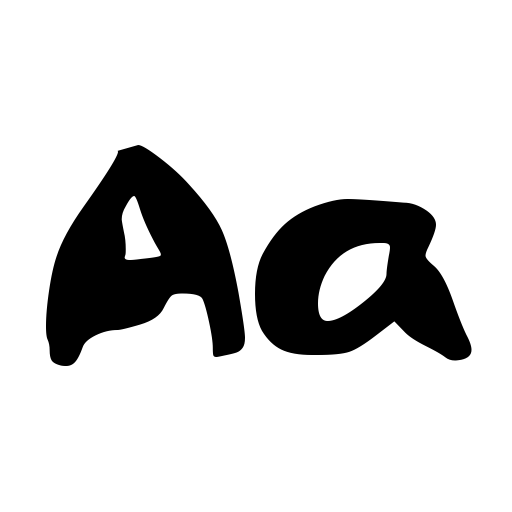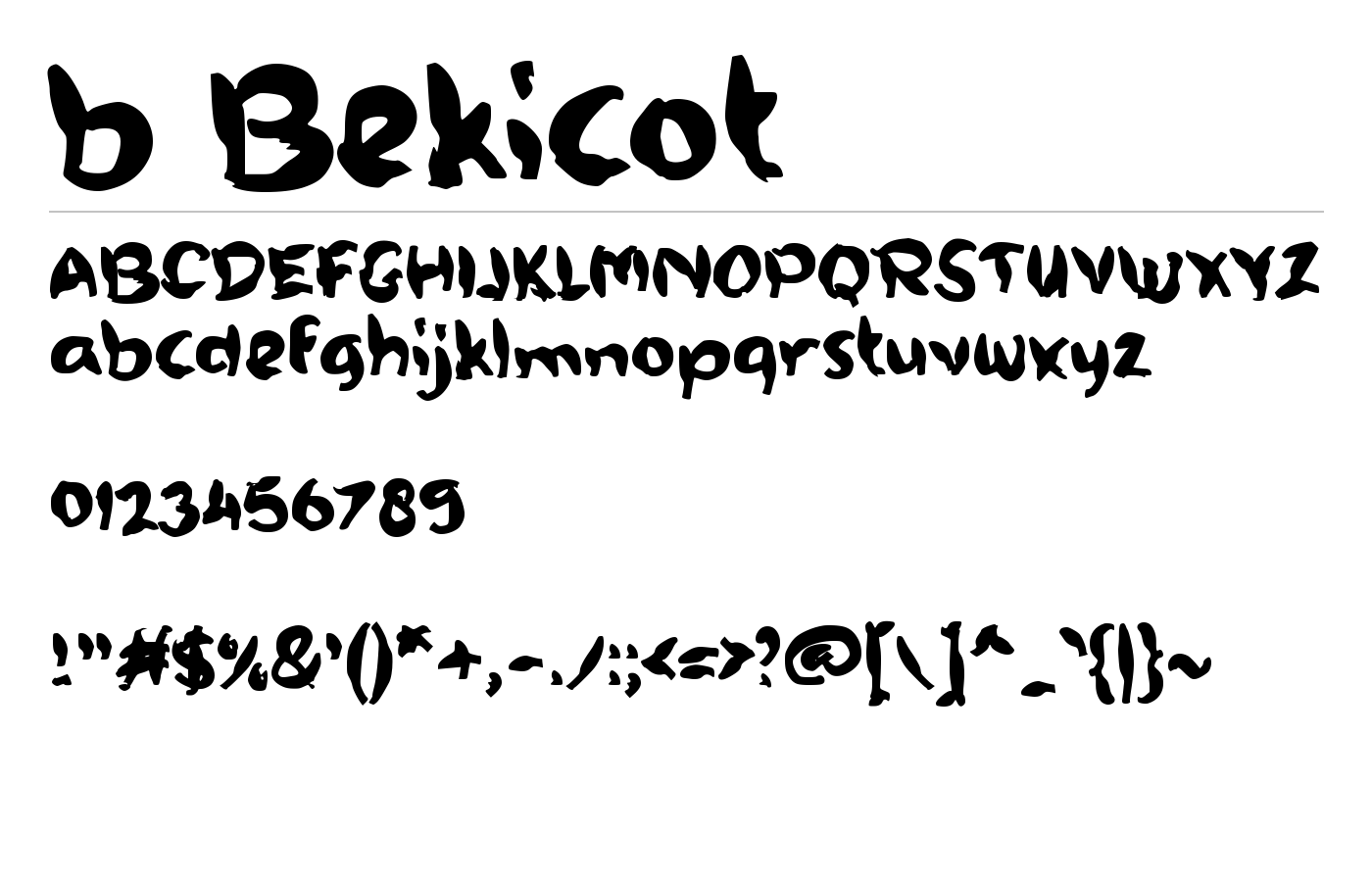
Bekicot is a bold, playful handwritten font with uneven strokes and a casual, organic feel. Its irregular shapes and lively character make it perfect for informal designs that need a friendly, approachable touch. Ideal for creative headlines, children’s projects, and whimsical branding, Bekicot brings a sense of fun and spontaneity to any layout.
b Bekicot Font